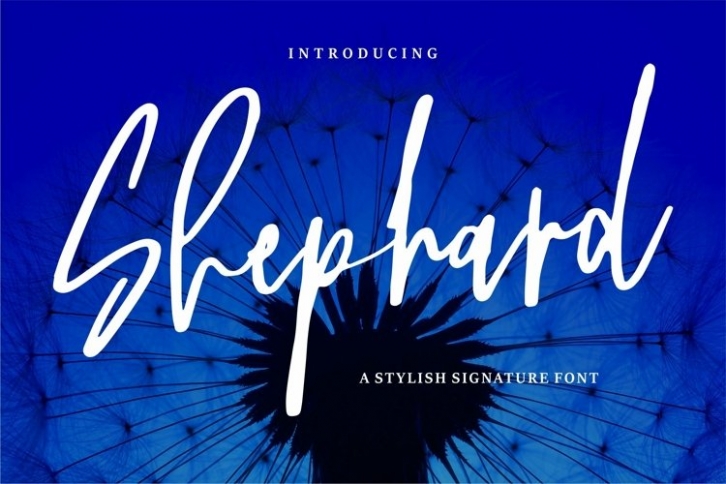
Web Shephard is a beautiful font that was designed by plusstore. It's a great choice for designers and creatives who need such a font. It was released on August 14, 2021 and the file size is 1.44 MB. Web Shephard may give a more youthful, expressive and casual look to your project. It is a very beautiful, refined, elegant, and high-quality font.